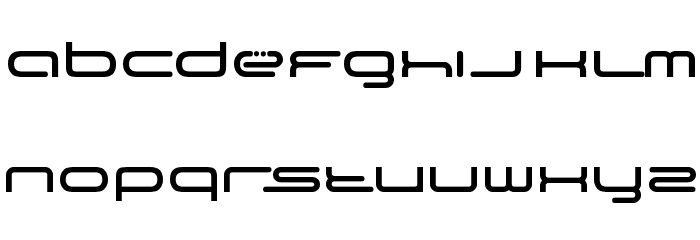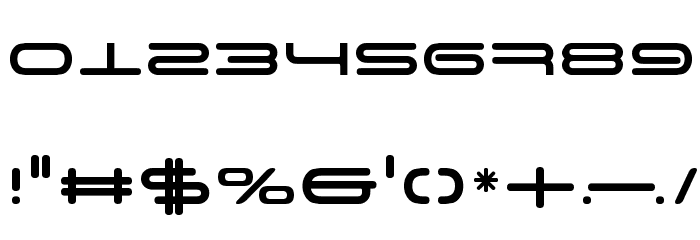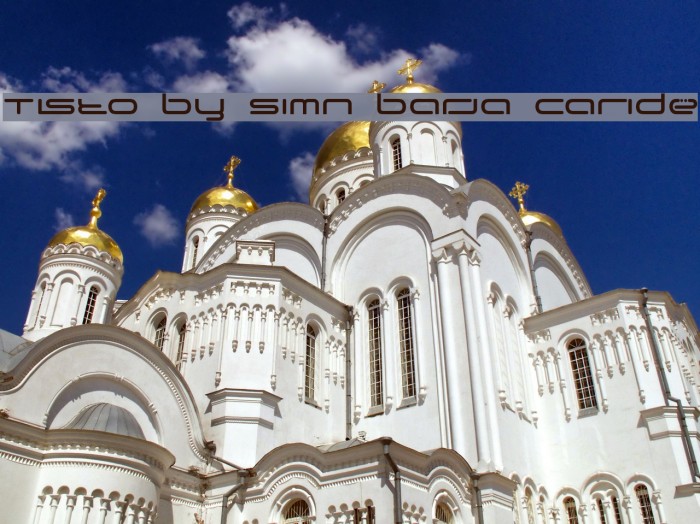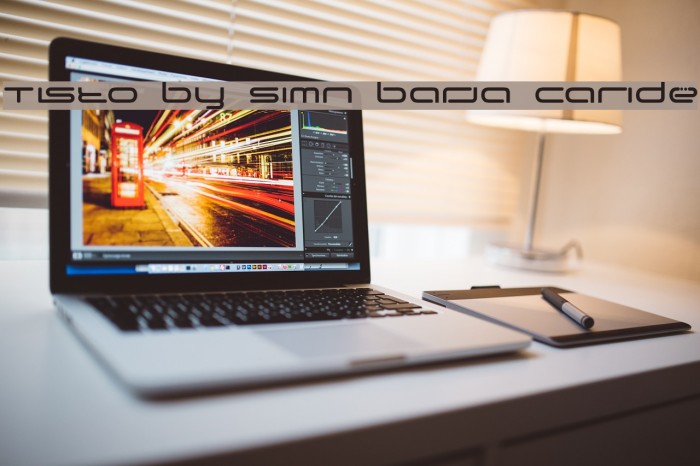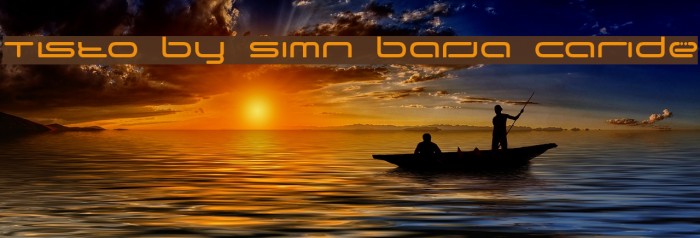
Tiësto By Simón Barja Caride Font
This font features a futuristic and sleek design, characterized by its rounded edges and geometric shapes. The letters are uniformly structured, giving a sense of cohesion and modernity. The uppercase and lowercase letters maintain a consistent height, enhancing readability while preserving a unique aesthetic. The numerals and special characters follow the same design principles, ensuring a harmonious appearance across all glyphs. The font's style is minimalistic yet distinct, making it suitable for projects that require a contemporary and innovative look.
A futuristic, geometric font with rounded edges and consistent structure.
- Proposed Projects: Ideal for technology branding, modern advertising, sci-fi themed designs, and digital interfaces.
- Overall Style: Futuristic
- Use Case: Logos, Headlines, Digital interfaces